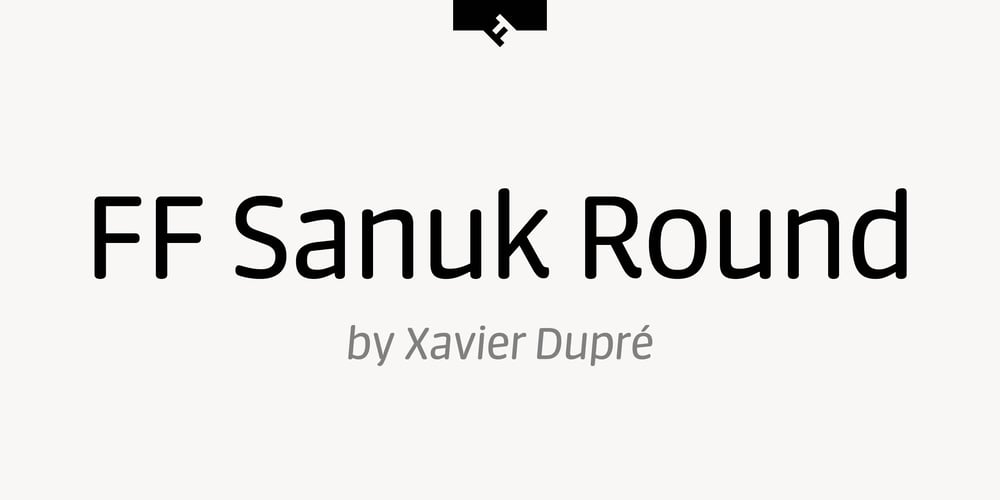
FF Sanuk Round Font Family was designed by Xavier Dupré and published by FontFont. FF Sanuk Round contains 10 styles and family package options. “The rounded shapes are like Chantilly cream or Italian meringue over a lemon pie,” says designer Xavier Dupré of his FF Sanuk Round typeface. Designed to work alongside the existing members of the FF Sanuk family, this sprightly sans serif offers a more mischievous personality than its counterparts. Angular shapes have been gently softened, to create a playful design that really comes into its own at larger sizes. Set this one on posters and packaging, or anywhere you need to be punchy yet approachable. The FF Sanuk Round family is based on the original FF Sanuk family and offers 5 weights plus from Ultra Light to Black plus italics. It offers OpenType features including stylistic alternates and ligatures.